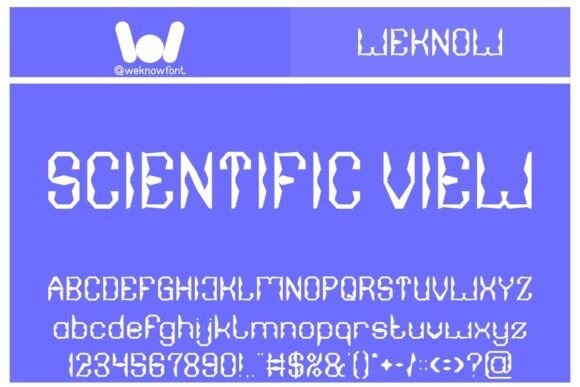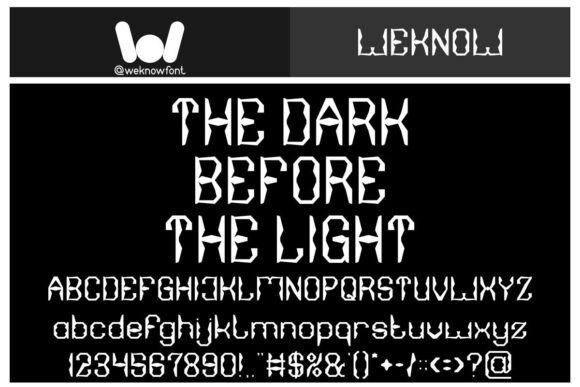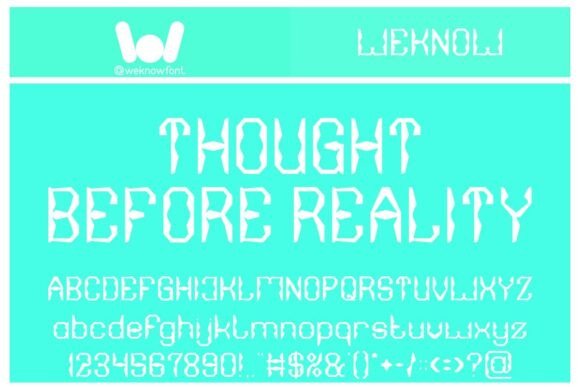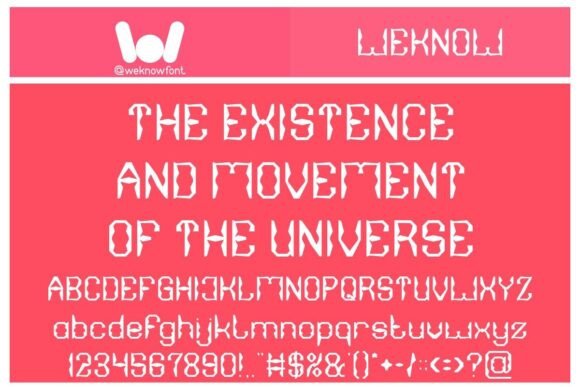
Scientific View Font
About the Scientific View Font
Explore the possibilities with Scientific View Font, a font that offers both beauty and functionality. Immerse your design in the future with Scientific View—a dynamic amalgamation of technologically advanced elements and artificial intelligence nuances. Perfectly formulated to incorporate into any corporate branding, this font breathes life into logos, headlines, and brand identities. Its unique look transcends into the apparel industry, adding a futuristic touch to garments. Versatile and engaging, it sets the right tone for posters, music albums, games, films, and magazines.
Within the book, comic, and cartoon world, Scientific View effortlessly commandeers attention. Perfect for YouTube and Instagram content, this font enhances engagement and viewer interaction. Make your website stand out from the crowd with the techno-sci-fi feel of Scientific View. Breathe life into your creativity using this captivating display font. Explore the endlessly exciting possibilities Scientific View brings to your design projects.
Scientific View Font Usage Examples
Scientific View Font Example